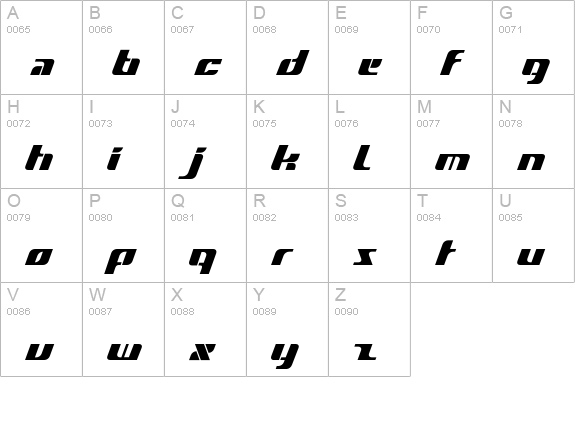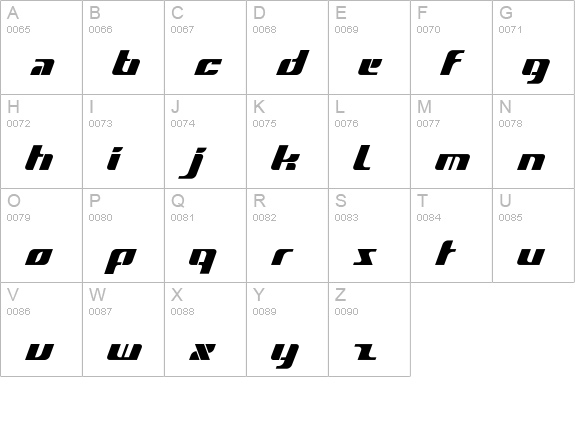
BDfazer Font Details
BDfazer font is a modern and stylish typeface that exudes sophistication and elegance. Its sleek lines and unique design make it perfect for a wide range of design projects, from branding to editorial layouts. The font's versatility allows it to be used in both digital and print media, making it a valuable addition to any designer's toolkit. The best part? BDfazer font is available for free download at FontsMarket.com. This means that you can easily access this high-quality font without any cost, making it a budget-friendly option for all your design needs. Don't miss out on the opportunity to elevate your projects with the beautiful BDfazer font – download it for free today!